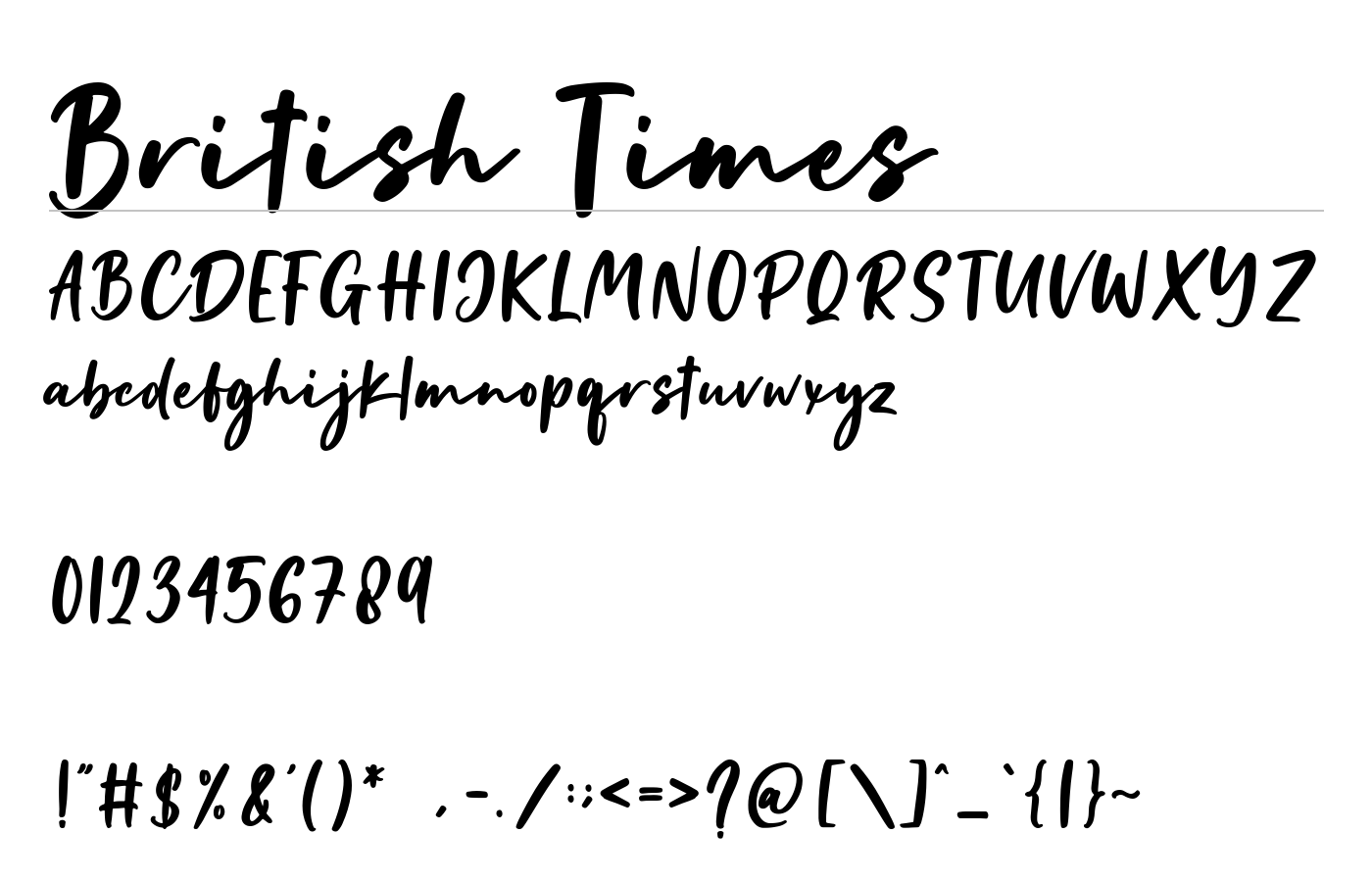
British Times is a lively and modern script font with a casual, handwritten feel. Its moderate contrast and smooth, flowing strokes create a friendly and approachable style, perfect for branding, invitations, and creative projects that seek a personal touch. This font works well in headlines and logos where warmth and character are desired.
British Times Font
About British Times Font
| Font family | British Times Font |
| Designer | Muhamad Fikry Nuralif |